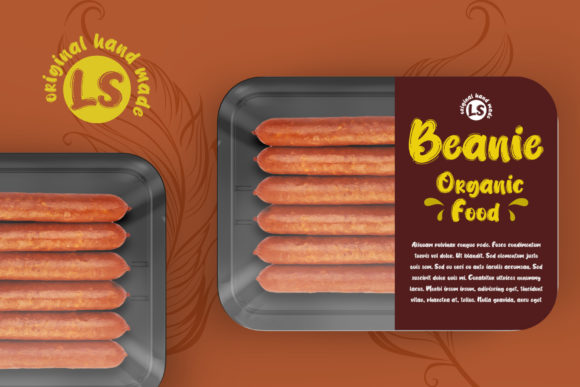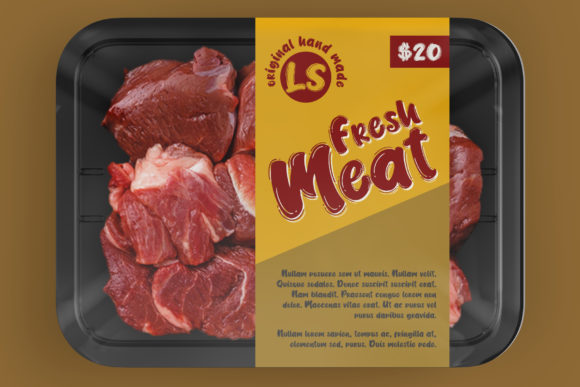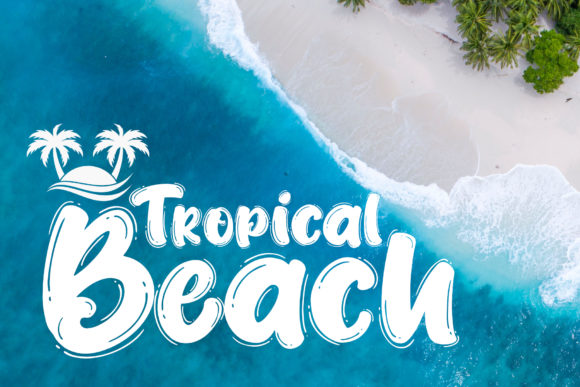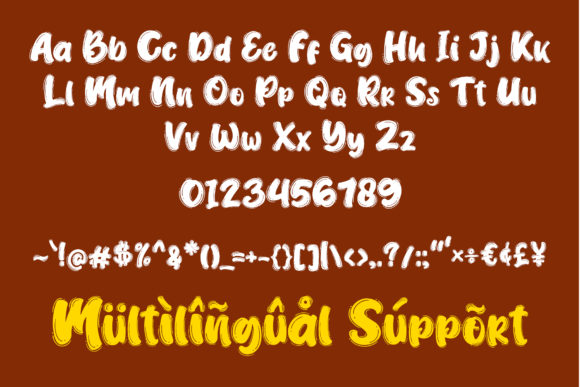
Introducing Buckles Font: The Perfect Choice for Fashion Branding and Editorial Designs
In the world of typography, fonts play a crucial role in conveying the tone and personality of a brand or design. For designers and crafters looking for a modern display font that exudes style and sophistication, Buckles Font is an excellent choice. This stunning font is designed to make a statement, with smooth curves and a bold, yet readable, aesthetic that’s perfect for fashion branding and editorial designs.
What Makes Buckles Font Stand Out?
Buckles Font is a modern display font that boasts a unique combination of style, readability, and versatility. Here are some key features that make it an attractive choice for designers and crafters:
- Readable and Bold: Buckles Font strikes the perfect balance between readability and boldness, making it ideal for headlines, titles, and other display text.
- Smooth Curves: The font’s smooth curves give it a sleek, sophisticated look that’s perfect for fashion branding and editorial designs.
- Versatile: Buckles Font can be used confidently in a variety of projects, from fashion branding and editorial designs to packaging and advertising.
The Benefits of Using Buckles Font in Your Designs
Adding Buckles Font to your design projects can have a significant impact on the overall look and feel of your work. Here are some benefits of using Buckles Font:
- Elevate Your Brand: Buckles Font can help elevate your brand’s visual identity and make it stand out in a crowded market.
- Enhance Readability: The font’s bold and readable design ensures that your message is conveyed clearly and effectively.
- Add Style and Sophistication: Buckles Font’s smooth curves and modern aesthetic add a touch of style and sophistication to any design.
How to Use Buckles Font in Your Designs
Using Buckles Font in your designs is easy and straightforward. Here are some tips to get you started:
- Pair it with Other Fonts: Buckles Font pairs well with other fonts, making it easy to create visually appealing typography combinations.
- Experiment with Colors: The font’s bold design makes it perfect for use with bright, bold colors that grab attention.
- Use it for Headlines and Titles: Buckles Font is ideal for headlines and titles, where its bold and readable design can make a big impact.
Why Designers and Crafters Love Buckles Font
Buckles Font has quickly become a favorite among designers and crafters, and for good reason. Here are some reasons why:
- Unique and Stylish: Buckles Font offers a unique and stylish aesthetic that’s perfect for designers and crafters looking to add a touch of sophistication to their work.
- Easily Readable: The font’s bold and readable design makes it easy to use in a variety of projects, from fashion branding to editorial designs.
- Versatile: Buckles Font can be used confidently in a range of projects, making it a valuable addition to any designer’s toolkit.
In conclusion, Buckles Font is a modern display font that’s perfect for fashion branding and editorial designs. With its smooth curves, bold and readable design, and versatility, it’s an excellent choice for designers and crafters looking to elevate their work. Whether you’re looking to add style and sophistication to your designs or simply want a font that’s easy to read and use, Buckles Font is an excellent choice. So why wait? Add Buckles Font to your projects today and experience the difference for yourself!